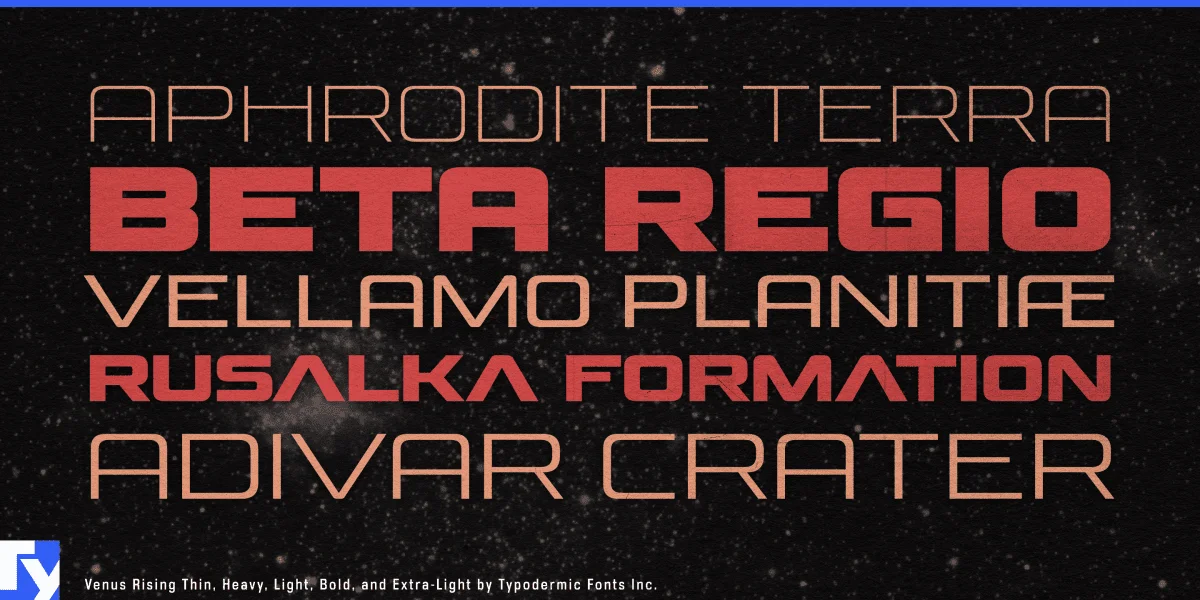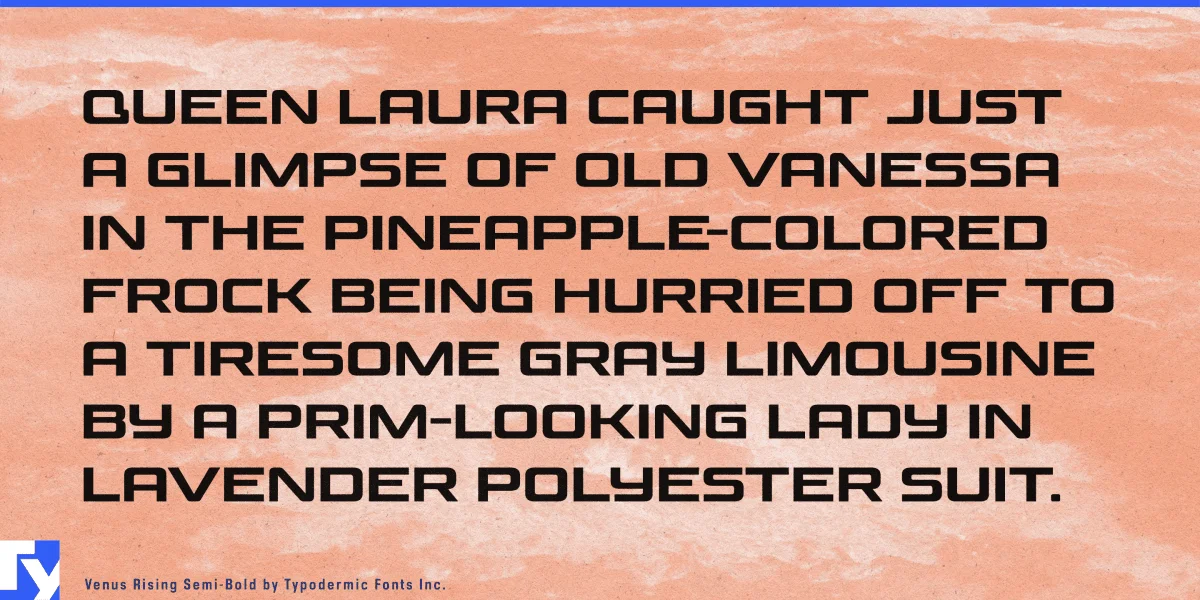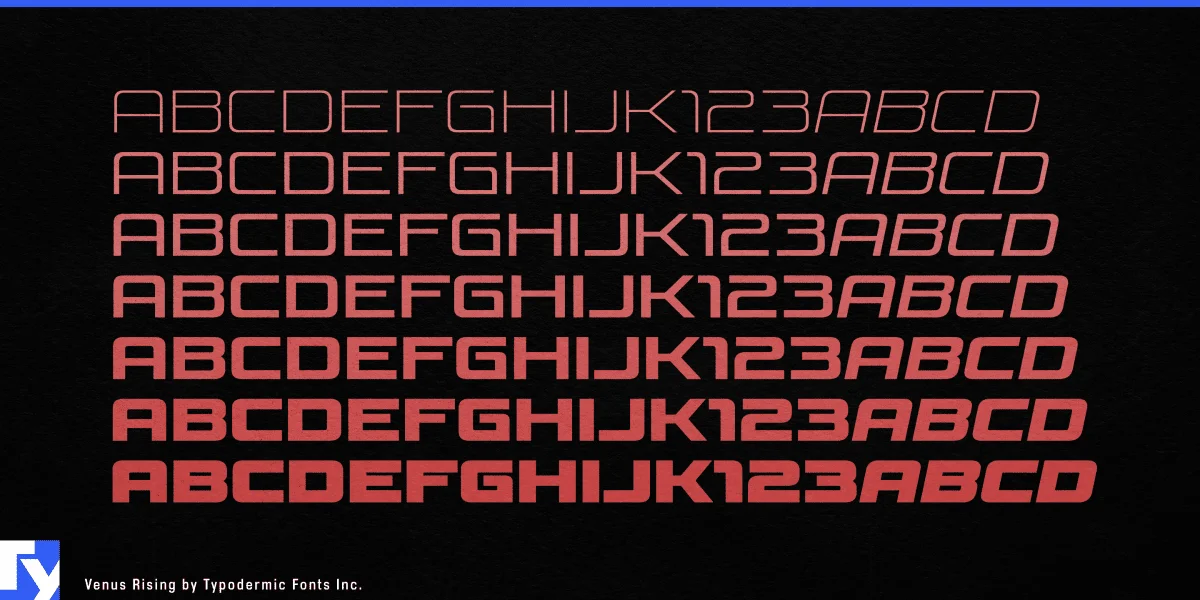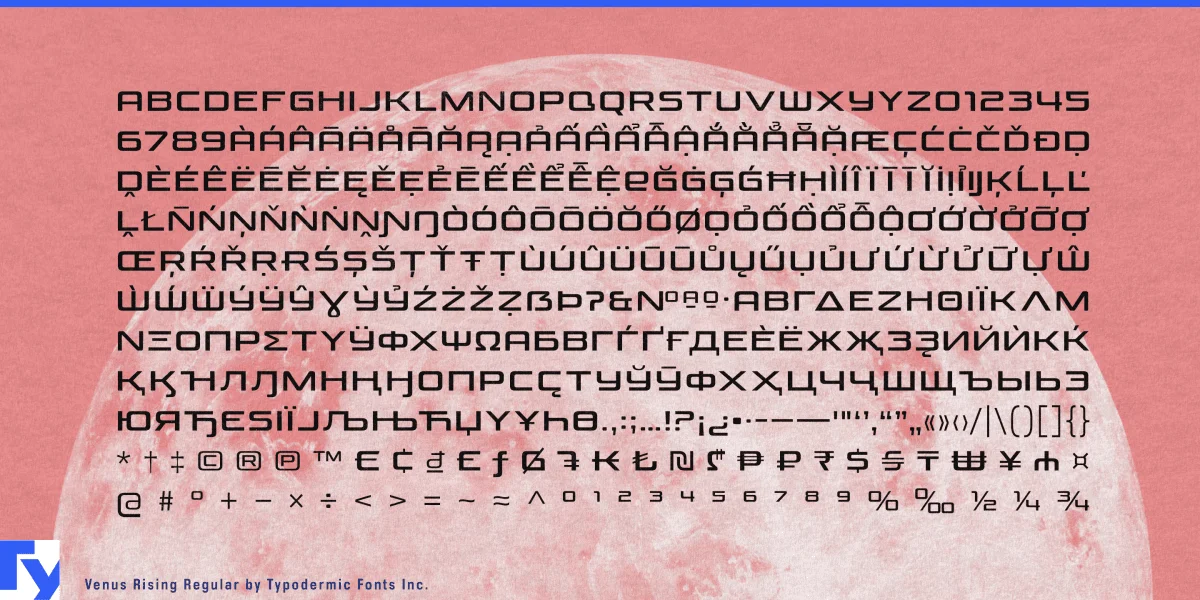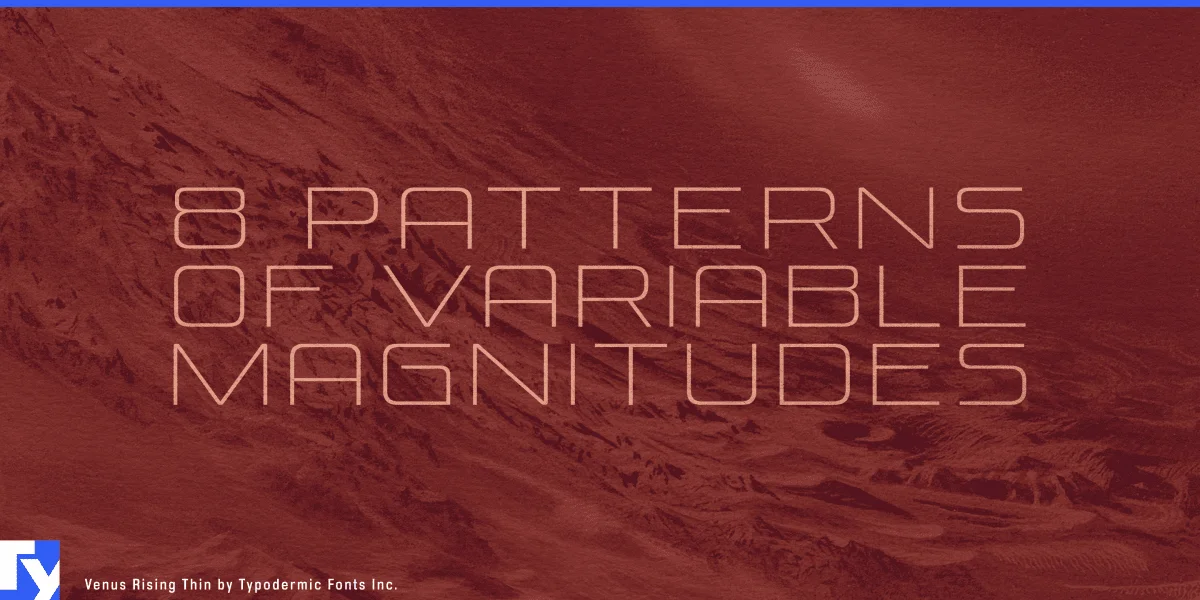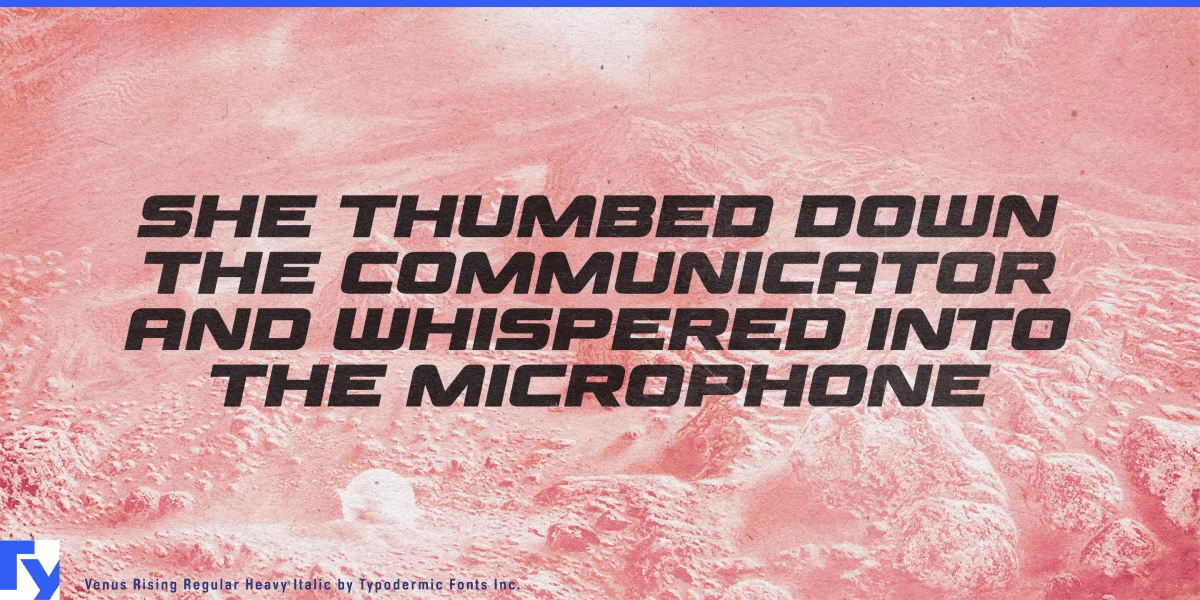
Embark on a typographic odyssey with Venus Rising—a font that captures the romance of interplanetary travel and the precision of cosmic engineering. This is a portal to a future where humanity’s reach extends beyond the stars.
Venus Rising’s quadratical symmetry isn’t merely a design choice—it’s a reflection of the orderly chaos of the cosmos. Each letterform stands as a testament to human ingenuity, its square industrial edges reminiscent of spacecraft panels and airlock doors. As your eyes trace the contours of each character, you’re not just reading—you’re navigating the blueprints of our interstellar future. But Venus Rising isn’t content to remain earthbound. Its seven weights, including sleek obliques, offer the gravitational flexibility to adapt to any design environment. From the weightlessness of Extra Light to the dense atmosphere of Extra Bold, Venus Rising ensures your message maintains its impact whether it’s plastered across a colony dome or etched into a spaceship’s hull.
Unlock the secrets of the universe with Venus Rising’s OpenType features. Numeric ordinals count down to liftoff, while fractions calculate precise fuel mixtures. Alternate characters like the “Q” and “Y” stand ready to decode alien transmissions or map uncharted constellations. This isn’t just type—it’s a toolbox for cosmic communication. Venus Rising speaks the language of the stars fluently. Supporting an vast array of writing systems—from Latin-based European languages to Vietnamese, Greek, and Cyrillic—it ensures your message resonates across galaxies and cultures. Whether you’re designing the interface for a Mars rover or branding the first intergalactic cruise line, Venus Rising is your linguistic co-pilot.